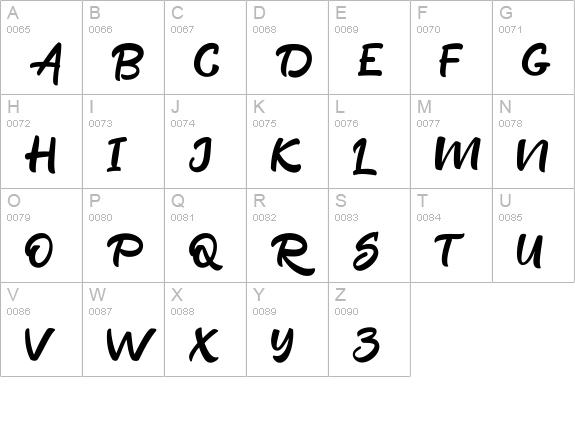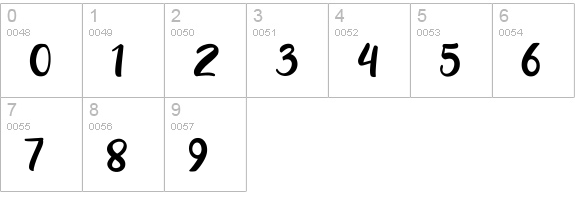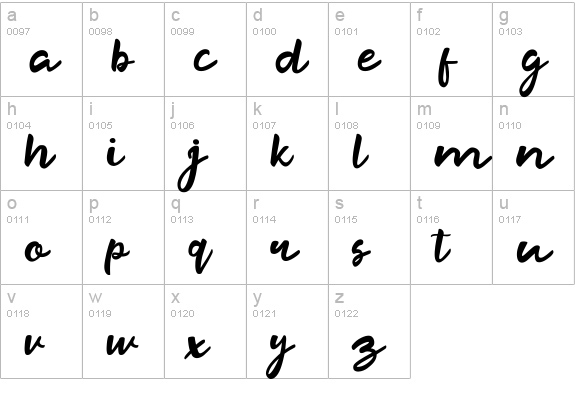
Razan Script Font Details
Razan Script is a donationware font in the Script category, designed by khurasan. It has been downloaded 159 times and is available for Windows, Mac and Linux.
Introducing Razan Script font, a charming and elegant typeface designed to add a touch of sophistication to your design projects. This script font features intricate brush strokes and a flowing style that exudes a sense of grace and beauty. Perfect for wedding invitations, logos, branding, and more, Razan Script font will elevate your designs to new heights.